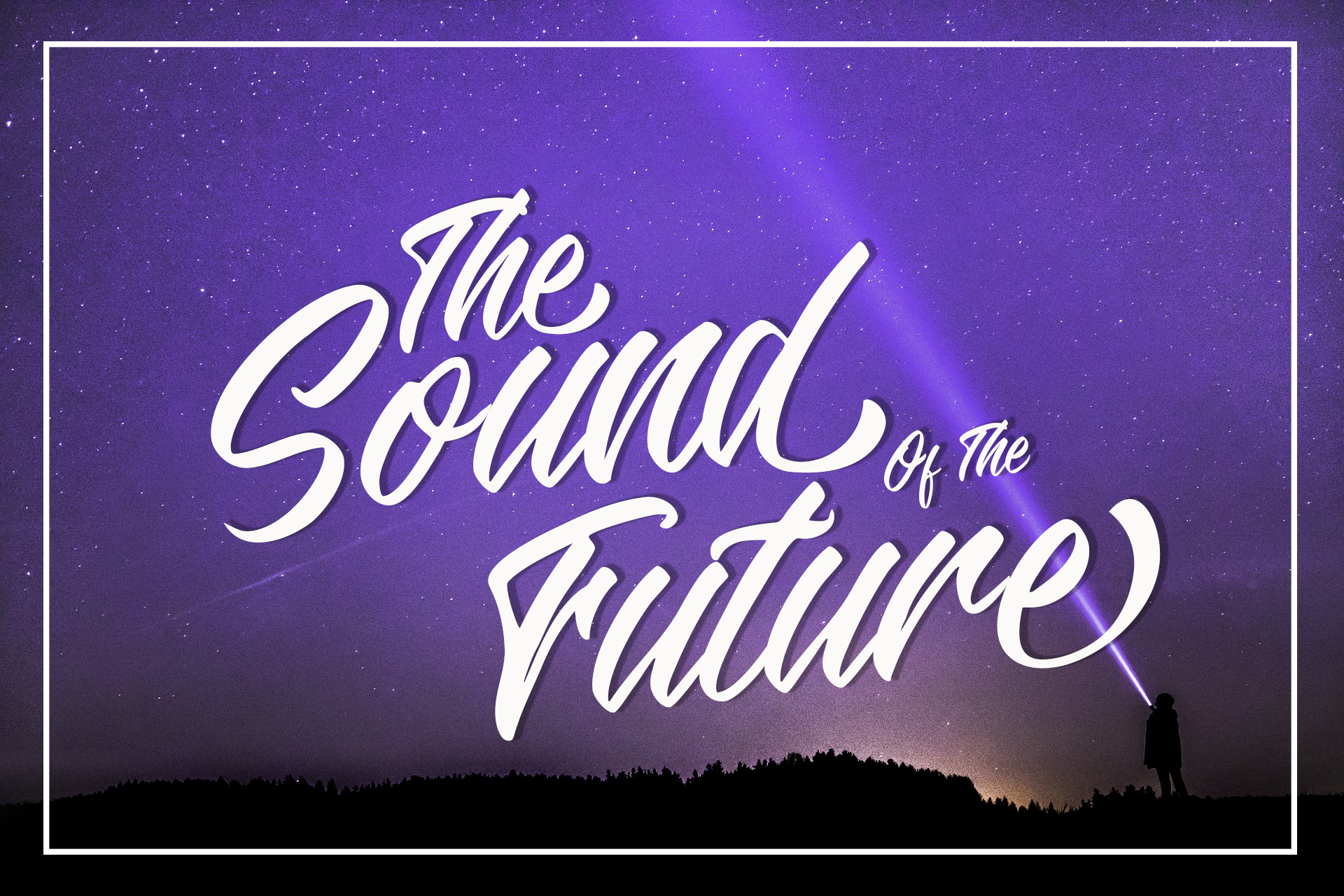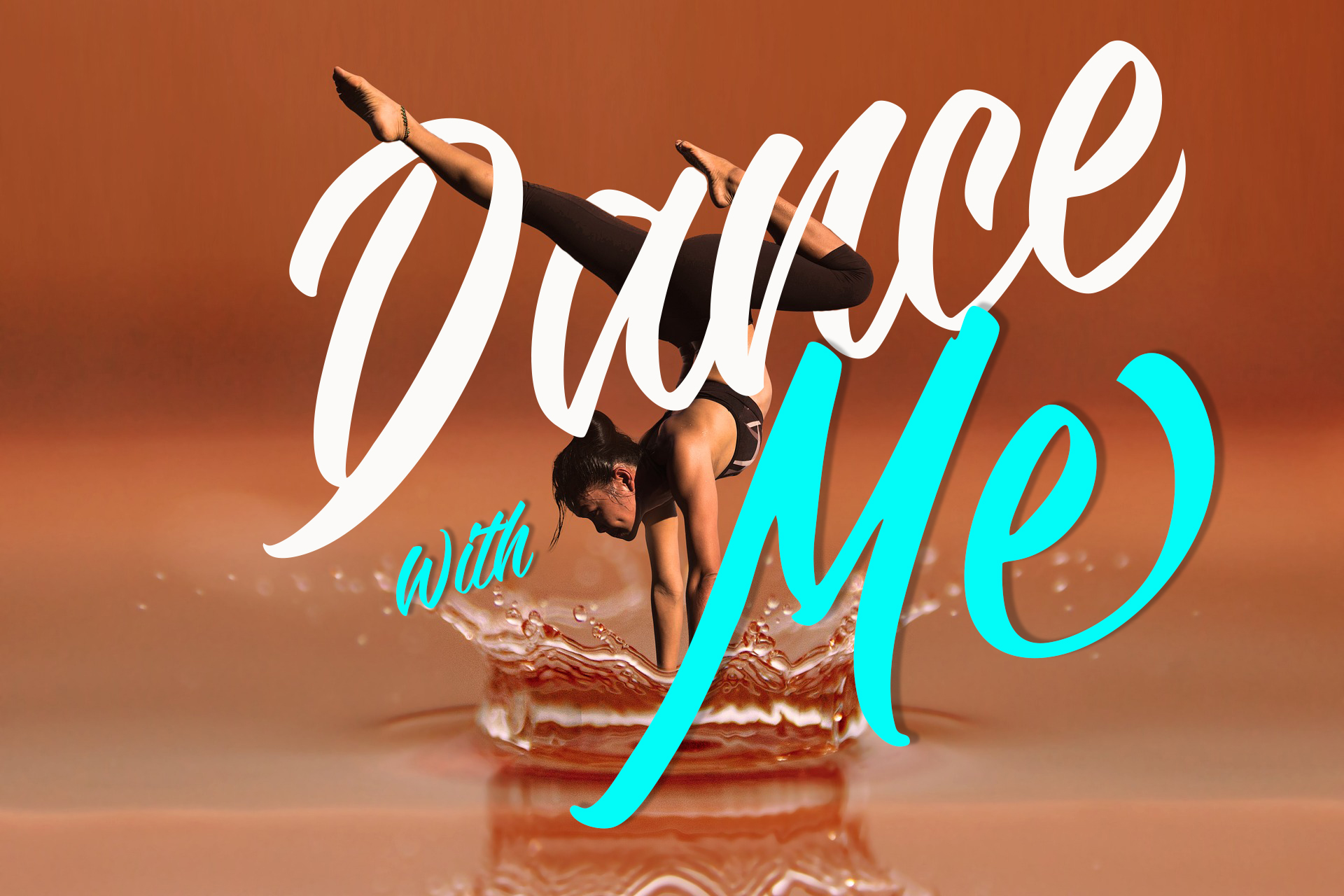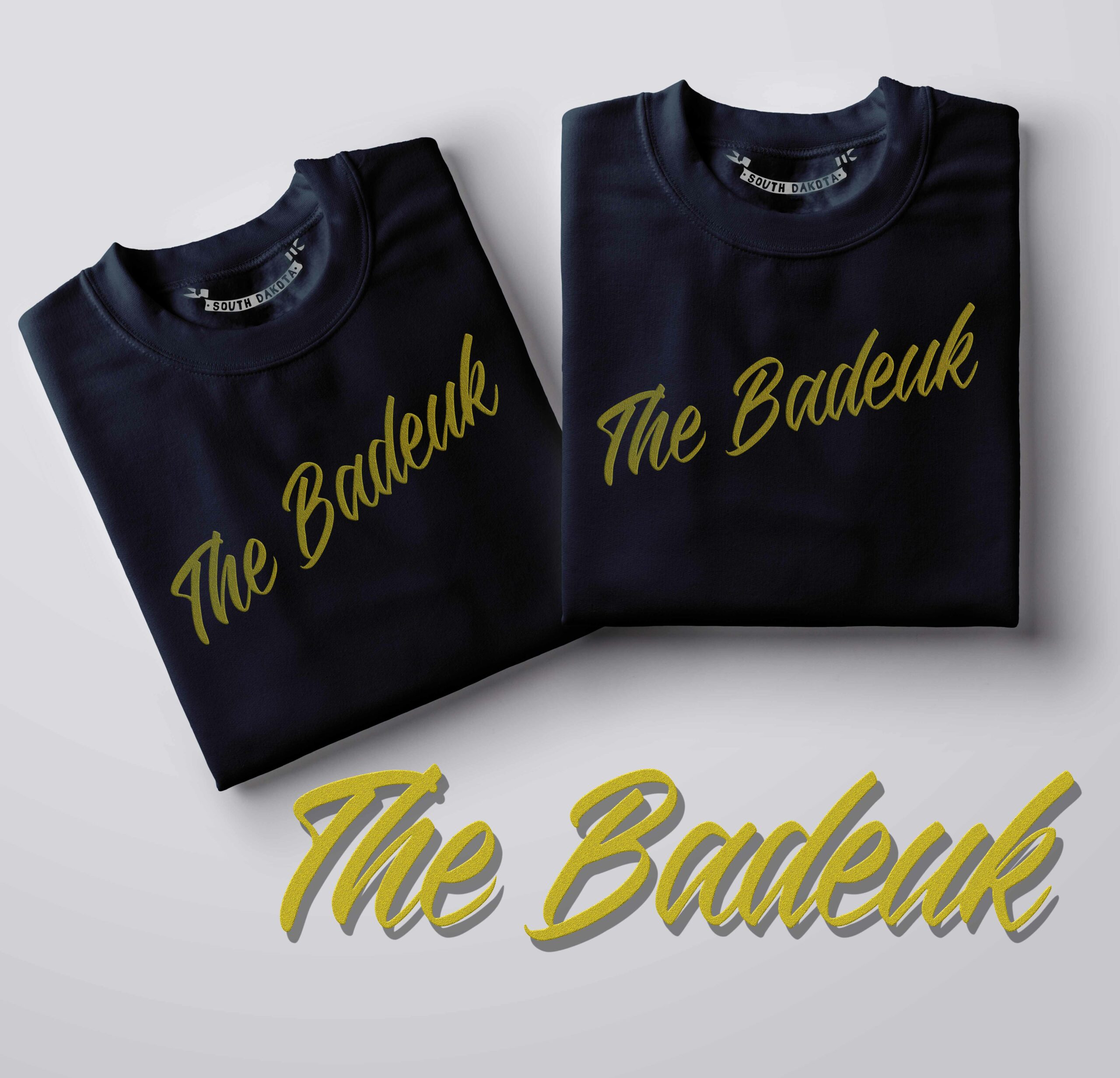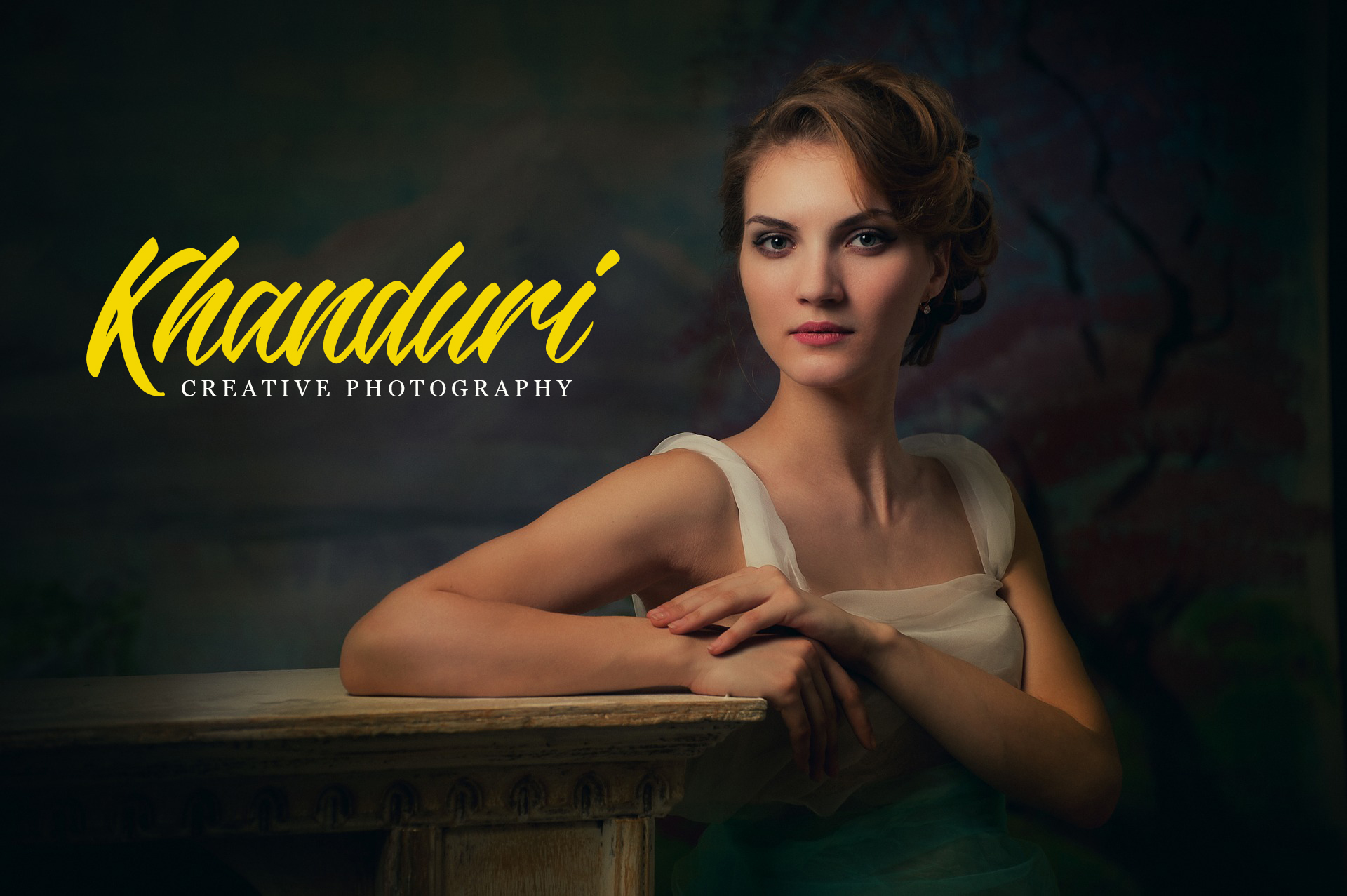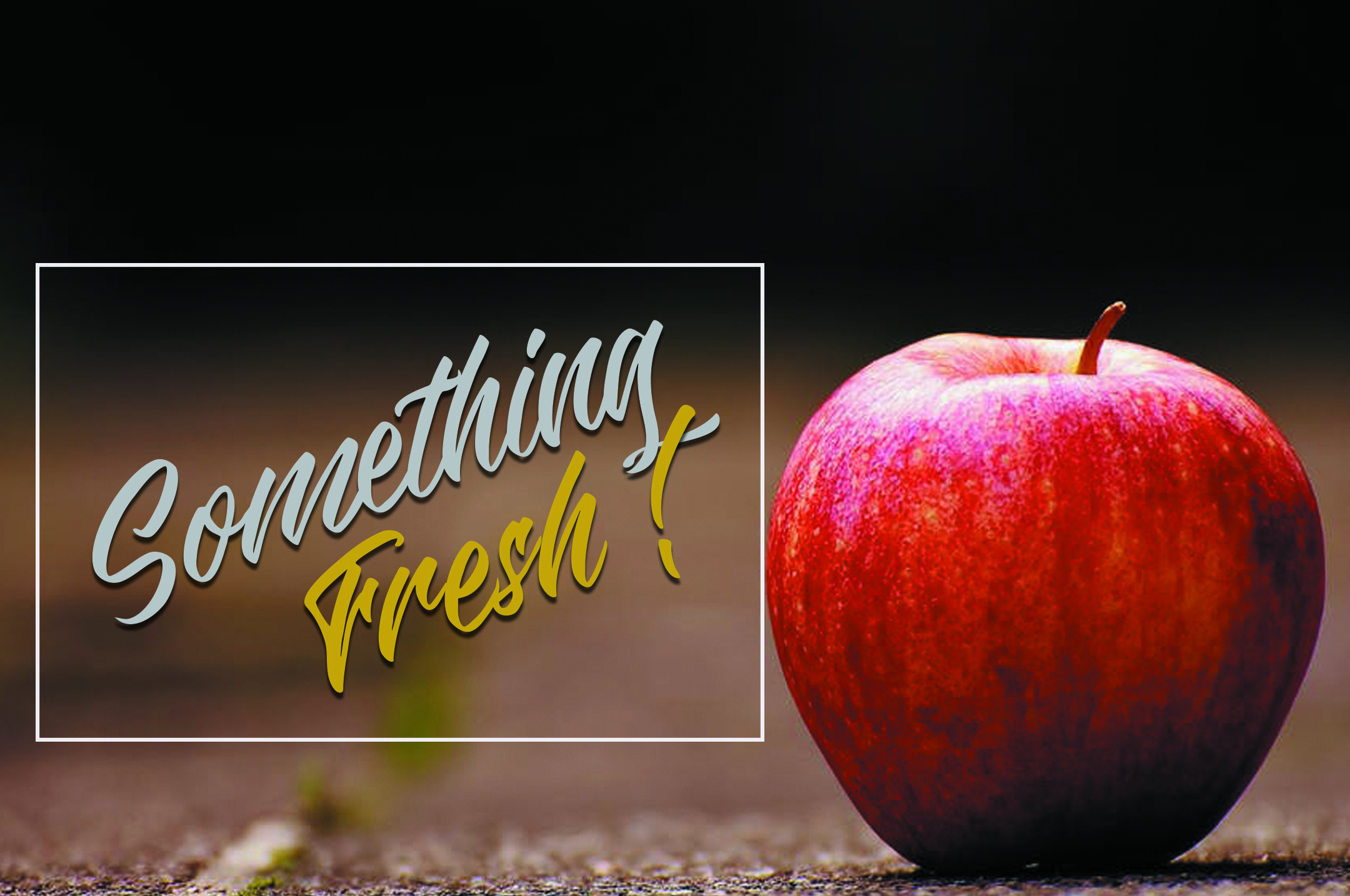
The Badeuk Font
About The Badeuk Font
The Badeuk is a gorgeous hand brush script font. With dramatic movement and wonderful styling, the Badeuk gives you the ability to mimic hand-lettering instantaneously.